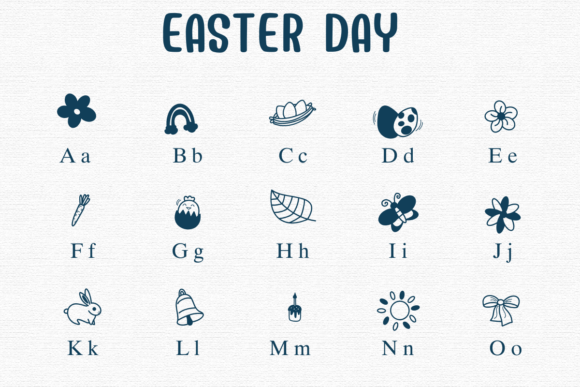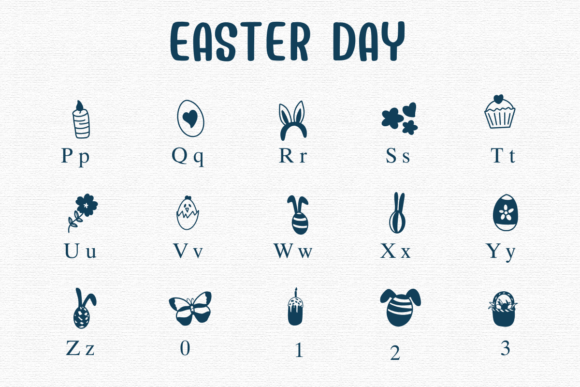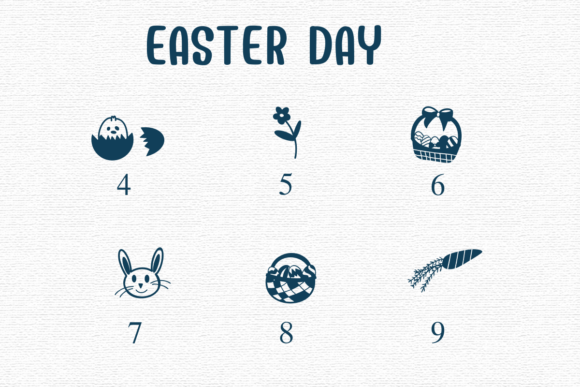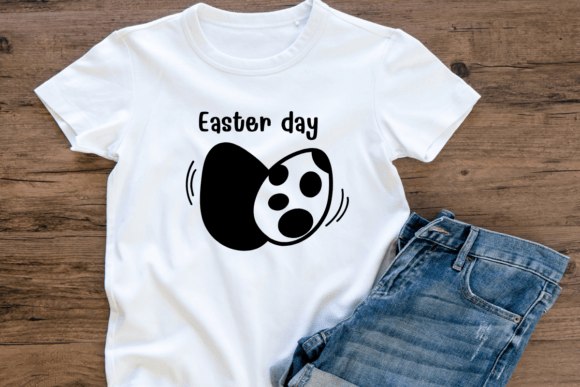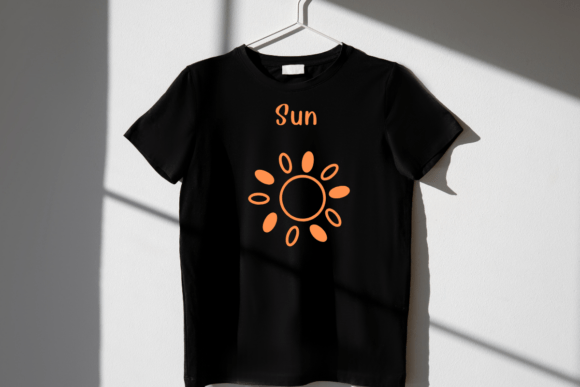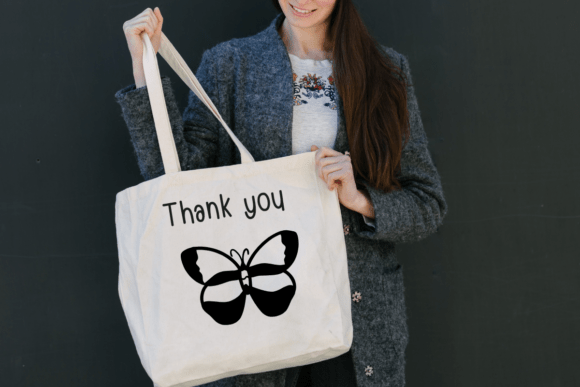
Easter Day Font: A Delightful Collection of Festive Icons for Springtime and Easter Designs
As the Easter season approaches, designers and crafters are on the lookout for the perfect fonts to add a touch of festivity to their creations. Look no further than the Easter Day Dingbats Font, a charming collection of icons that will bring joy and charm to your Easter-themed designs. In this article, we’ll dive into the world of Easter Day Font and explore its features, uses, and benefits for designers and crafters.
What is Easter Day Dingbats Font?
Easter Day Dingbats Font is a unique and delightful collection of festive icons, perfect for springtime and Easter-themed designs. This dingbat font features a wide range of characters, including decorated eggs, bunnies, flowers, sunshine, and more. Each icon is carefully crafted to bring a touch of whimsy and fun to your designs, making it ideal for greeting cards, invitations, packaging, and kids’ crafts.
Features of Easter Day Dingbats Font
The Easter Day Dingbats Font boasts an impressive range of features that make it a must-have for designers and crafters. Some of its key features include:
- Wide range of characters: The font features a vast collection of Easter-themed icons, including decorated eggs, bunnies, flowers, and more.
- High-quality design: Each icon is carefully crafted with attention to detail, ensuring that your designs look professional and visually appealing.
- Scalable: The font is scalable, allowing you to use it for a wide range of projects, from small crafts to large-scale designs.
Uses of Easter Day Dingbats Font
The Easter Day Dingbats Font is incredibly versatile and can be used for a wide range of projects, including:
- Greeting cards: Add a touch of festivity to your Easter greeting cards with the font’s delightful icons.
- Invitations: Create eye-catching invitations for Easter parties, egg hunts, and other springtime events.
- Packaging: Use the font to add a personal touch to your Easter-themed packaging, such as gift boxes and bags.
- Kids’ crafts: The font is perfect for kids’ crafts, such as making Easter-themed coloring pages, stickers, and more.
Benefits of Using Easter Day Dingbats Font
Using the Easter Day Dingbats Font offers a range of benefits for designers and crafters, including:
- Time-saving: The font saves you time and effort, as you can easily access a wide range of Easter-themed icons without having to create them from scratch.
- Professional-looking designs: The font’s high-quality design ensures that your projects look professional and visually appealing.
- Unique and creative designs: The font’s unique icons allow you to create one-of-a-kind designs that stand out from the crowd.
Tips for Using Easter Day Dingbats Font
Here are some tips for getting the most out of the Easter Day Dingbats Font:
- Experiment with different colors: Try out different colors and color combinations to add depth and interest to your designs.
- Mix and match icons: Combine different icons to create unique and creative designs.
- Use the font for seasonal projects: Use the font for a wide range of seasonal projects, from Easter to spring-themed designs.
The Easter Day Dingbats Font is a delightful collection of festive icons perfect for springtime and Easter-themed designs. With its wide range of characters, high-quality design, and ease of use, this font is a must-have for designers and crafters. Whether you’re creating greeting cards, invitations, packaging, or kids’ crafts, the Easter Day Dingbats Font is sure to bring charm and joy to your designs.